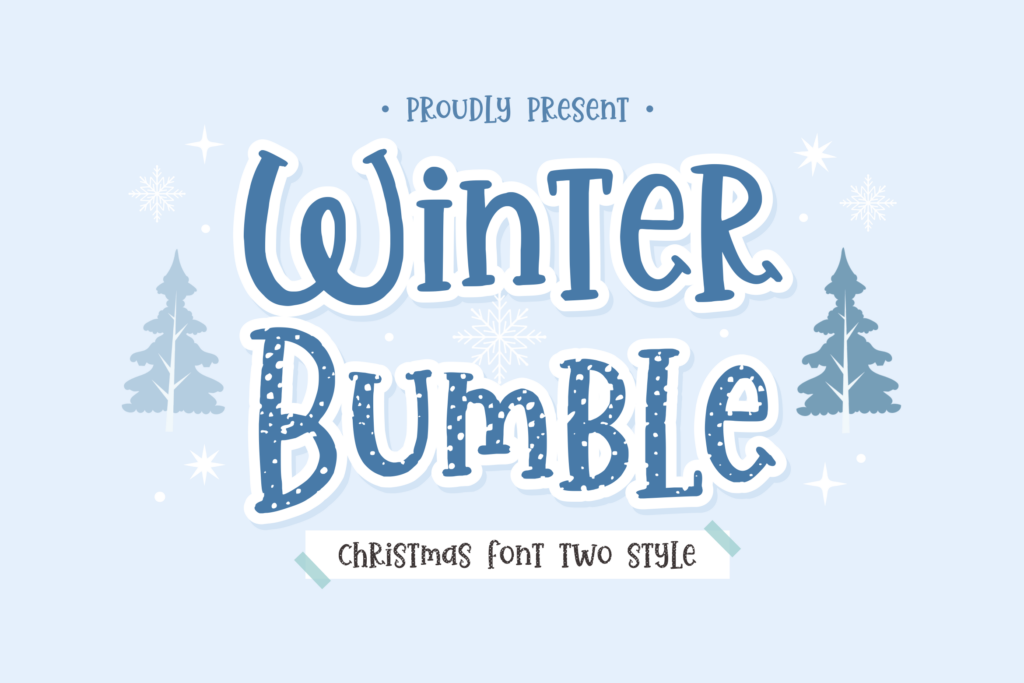
Winter Bumble Display Font is a fun and relaxed handwritten font. Incredibly versatile, this font fits a wide pool of designs, elevating them to the highest levels. Add this font to your favorite creative ideas and notice how it makes them come alive!